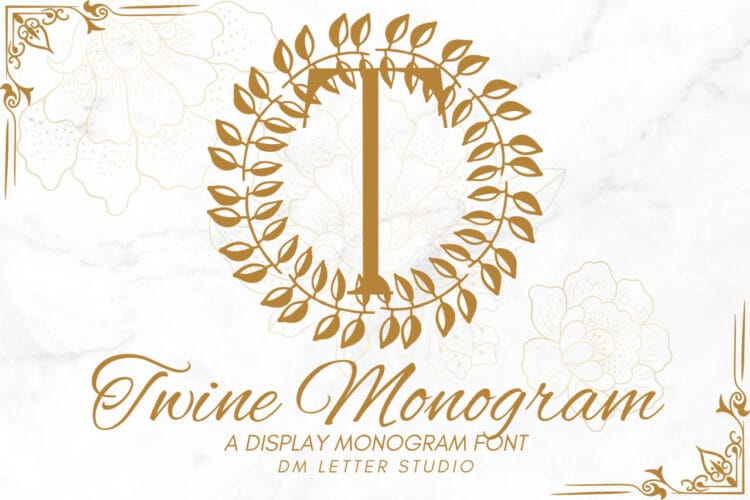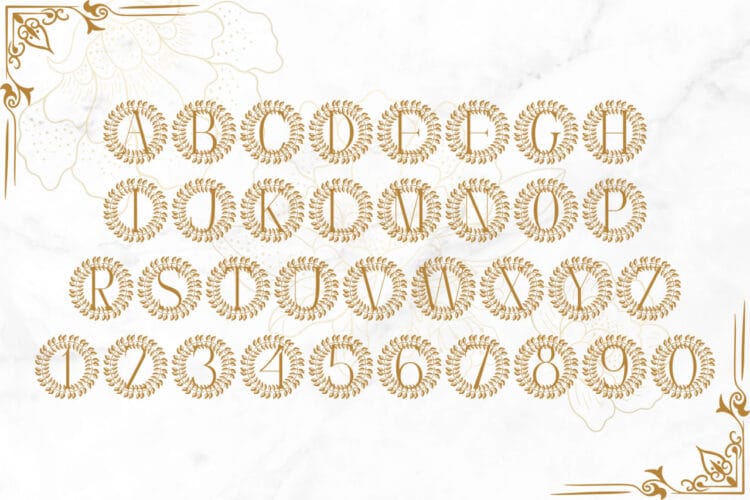
Meet Twine, the Monogram Font
Twine Monogram turns simple initials into clean, elegant emblems with a soft, intertwined feel. The letter shapes are smooth and balanced, so they stay readable at any size. Because counters stay open, small tags print crisp while larger designs look polished and premium. Use it for wedding suites, boutique logos, keepsake gifts, stationery, and luxury packaging. As a result, your initials feel refined and intentional with minimal effort.
Fast layouts with the Twine Monogram Font
Start with a bold initial and let white space breathe. After that, add names or dates using a separate supporting font. Because Twine holds shape at small sizes, labels, stickers, cards, and tags stay clean. In addition, it works beautifully with oval borders, wreath frames, thin dividers, and simple botanical accents, so full sets come together quickly. Finally, save palette pairs like sage & ivory, champagne & charcoal, blush & cocoa, or navy & pearl to reuse across product lines.
Creative uses and quick wins
Logo seals, brand badges, and boutique marks
Wedding initials for invitations, menus, and signage
Gift tags, stickers, and keepsake box marks
Packaging labels for candles, soap, perfume, and gifts
Alphabet characters (A–Z)
Numbers (0–9)
Design tips for Twine Monogram Font
Keep the monogram as the hero and use a separate font for extra text. Also, give it breathing room so details stay readable at small sizes. For a premium finish, try foil stamping, embossing, or letterpress on thick stock. Finally, export at 300 DPI for print and at 2× size for web so edges stay smooth everywhere.